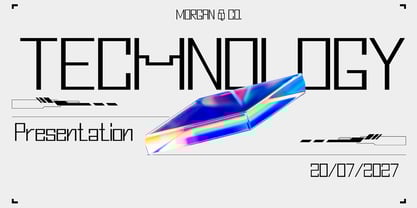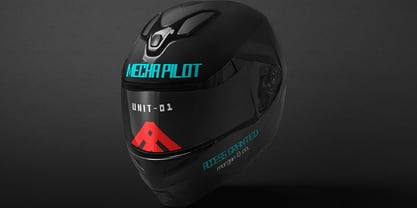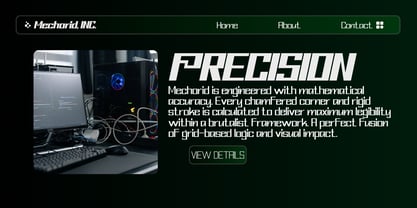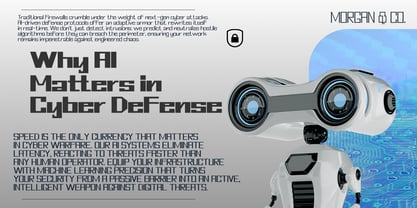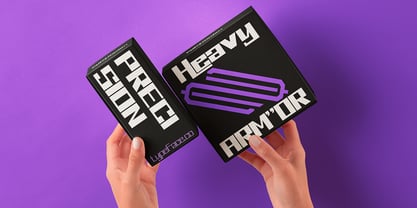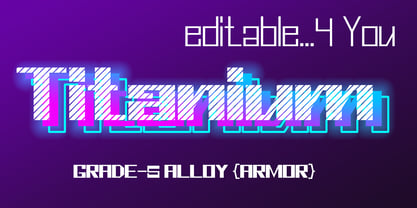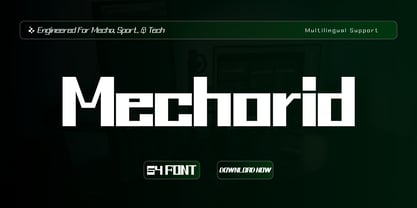
Mechorid
by Zaki Creative
The Mechorid Font Family was designed by Teuku Muhammad Zaki and published by Zaki Creative. Mechorid contains 55 styles and family package options. More about this family
MECHORID – The Industrial Precision Typeface Mechorid is not just a font; it is a calculated visual system engineered for the future of design. Built on a brutalist framework with strict grid-based logic, Mechorid features distinct chamfered corners and rigid strokes that embody the spirit of Mecha, Sport, and Advanced Technology. Whether you are designing a high-speed racing livery, a cyberpunk game interface, or heavy industrial branding, Mechorid delivers maximum legibility with an aggressive edge. The Ecosystem: With a massive collection of 54 Styles—ranging from the razor-thin "Hyperspeed" cuts to the heavy "Tank-armor" blocks, complete with Condensed and Expanded widths—Mechorid gives you total control to construct your typography with architectural precision. Perfect For: -Esports Logos & Jerseys -Automotive & Racing Branding -Techwear & Street Fashion -Futuristic UI/HUD Design -Heavy Machinery Packaging
Designers: Teuku Muhammad Zaki
Foundry: Zaki Creative